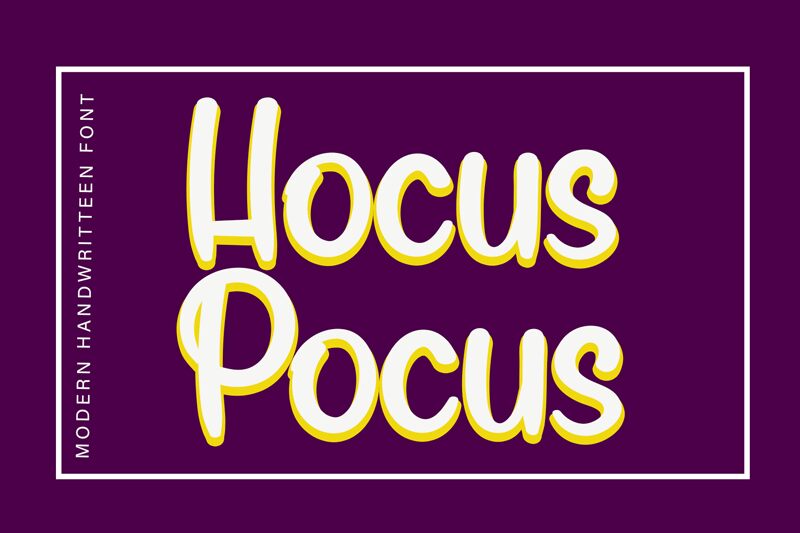
Hocus Pocus
Hocus Pocus, a font crafted by Etik Fatimah, embodies the personal touch and creative flair characteristic of handwritten typography. With its fluid strokes and distinctive character shapes, this font offers an aesthetic that feels simultaneously informal and engaging, perfect for projects aiming to convey warmth and individuality.
The charm of Hocus Pocus lies in its casual elegance; each letter appears to have been penned with care, yet there's an effortless spontaneity that invites viewers into a text as if it were a conversation. This font's legibility is paired with a playfulness that makes it versatile for various applications, from invitations and greeting cards to branding materials and book covers.
Invoking the magic of handcrafted artistry, Hocus Pocus stands out in its ability to bridge the gap between professional design and the authenticity of human handwriting. Whether you're looking to add personality to your project or striving for a design that feels approachable and down-to-earth, Hocus Pocus is poised to cast its spell on your creative endeavors.